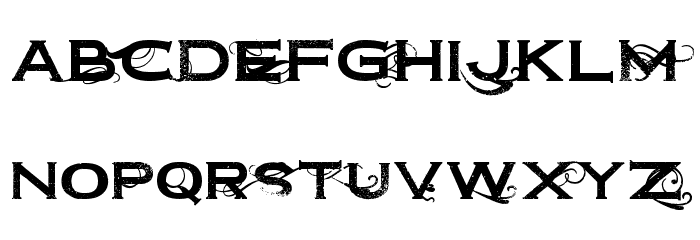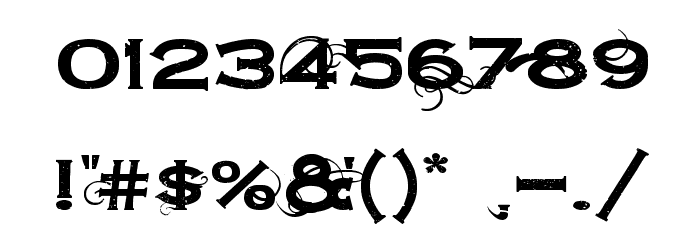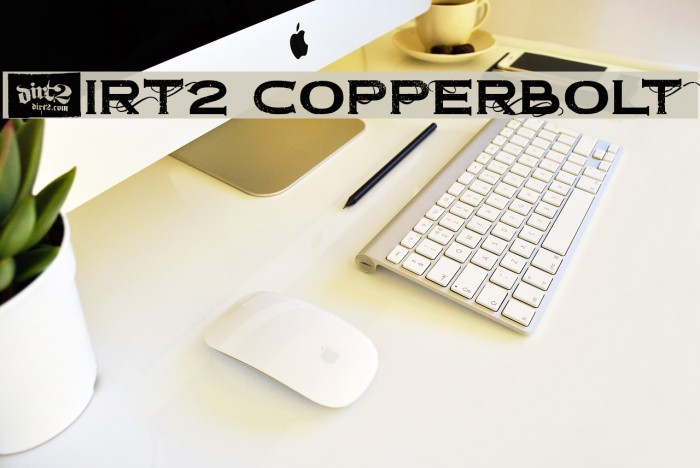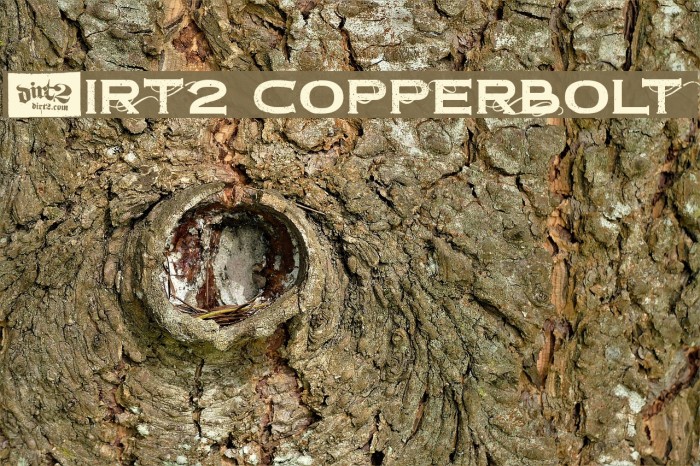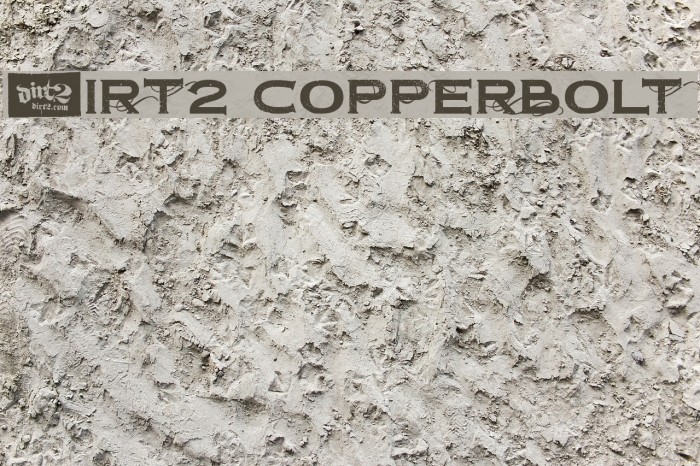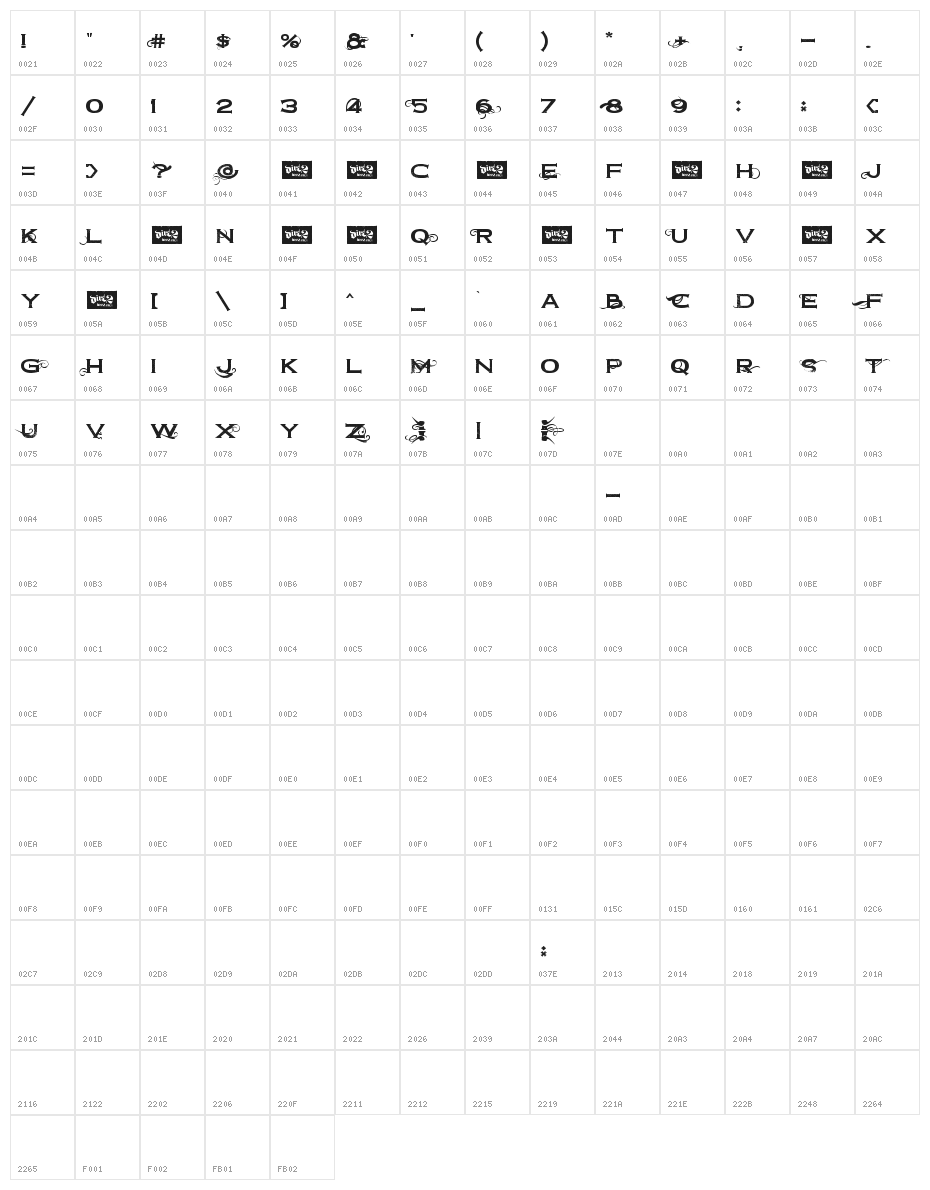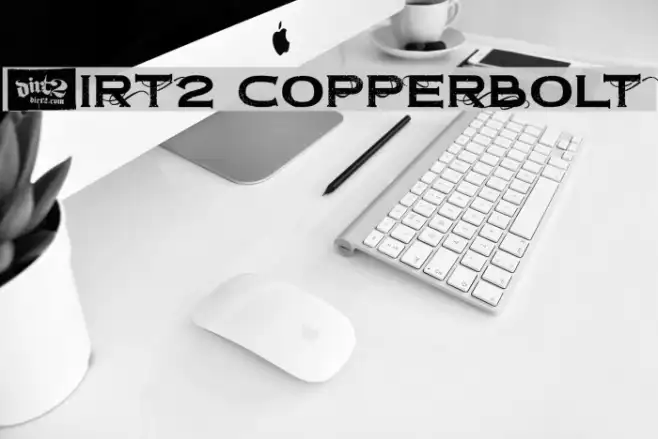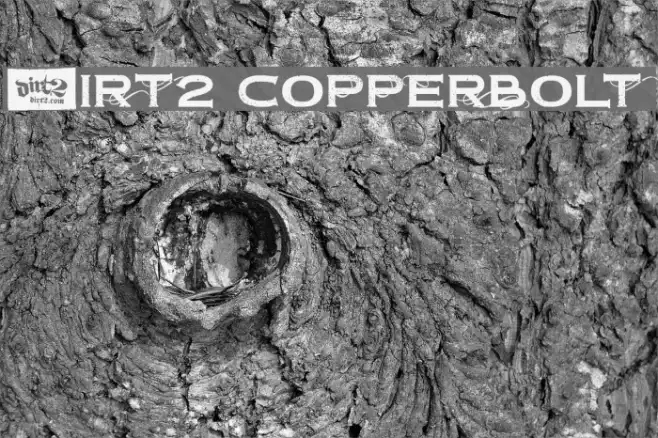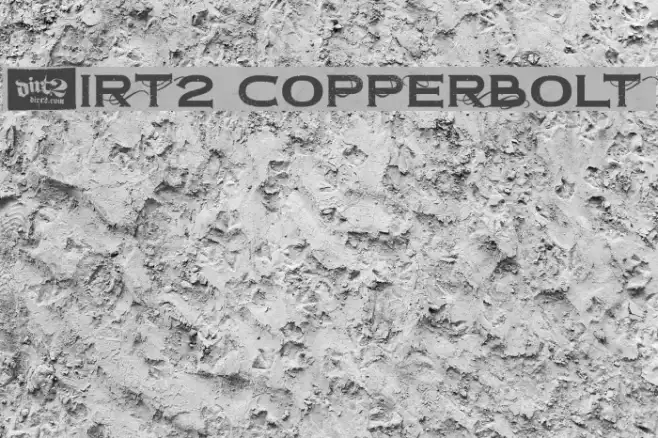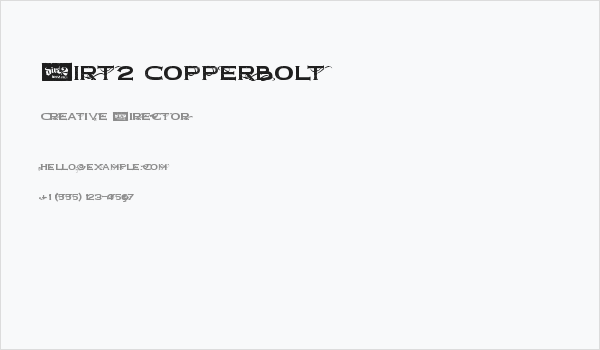
Dirt2 Copperbolt Font
This font features a distressed, grunge style with intricate details and embellishments that give it a unique, edgy appearance. The uppercase and lowercase letters are adorned with swirls and splatters, creating a sense of movement and chaos. The numerals and special characters maintain this aesthetic, making the font suitable for designs that require a bold, artistic touch. The overall look is both vintage and modern, with a decorative flair that stands out in any project.
A distressed, grunge-style font with decorative swirls and splatters.
- Proposed Projects: Ideal for album covers, posters, and edgy branding projects.